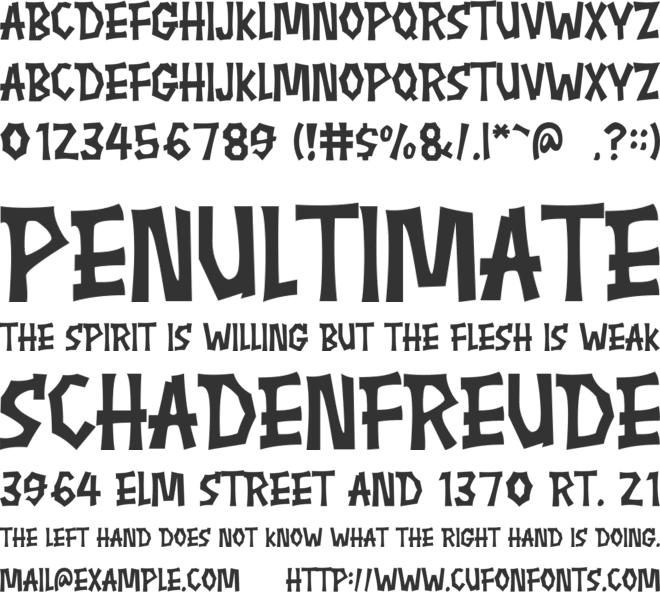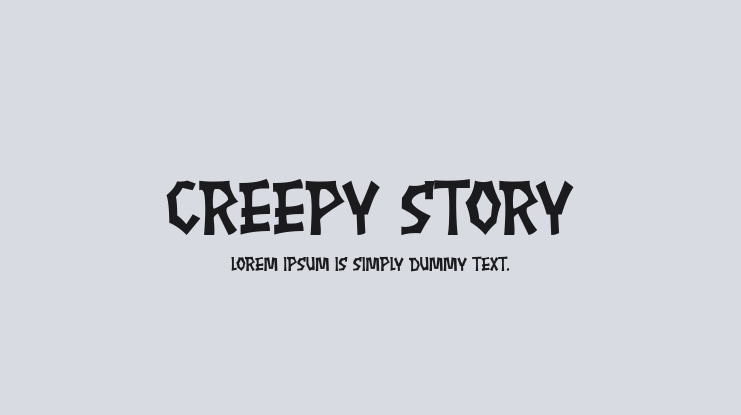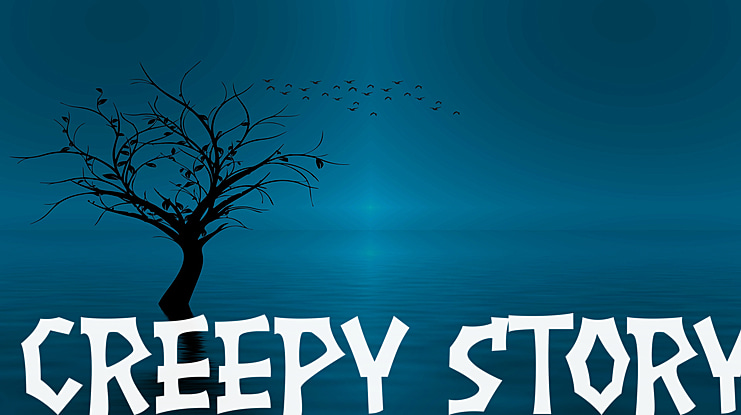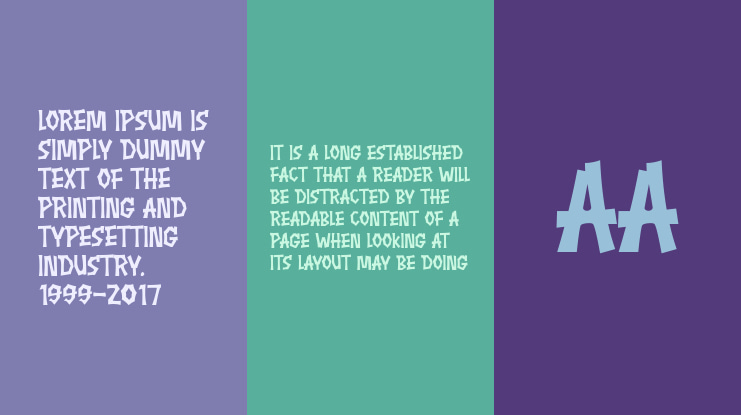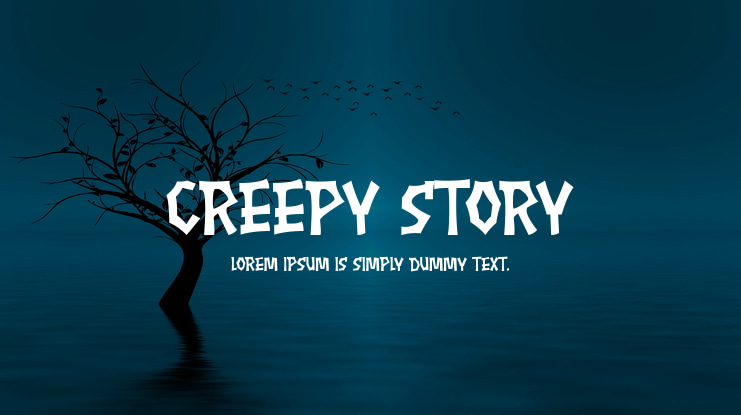
Creepy Story Font
Creepy Story is a unique and cute styled display font, made especially for children's products.
Creepy Story is perfect for posters, t-shirts, book covers, packaging, stickers, quots and all children's product designs that require cute, cute and adorable elements.